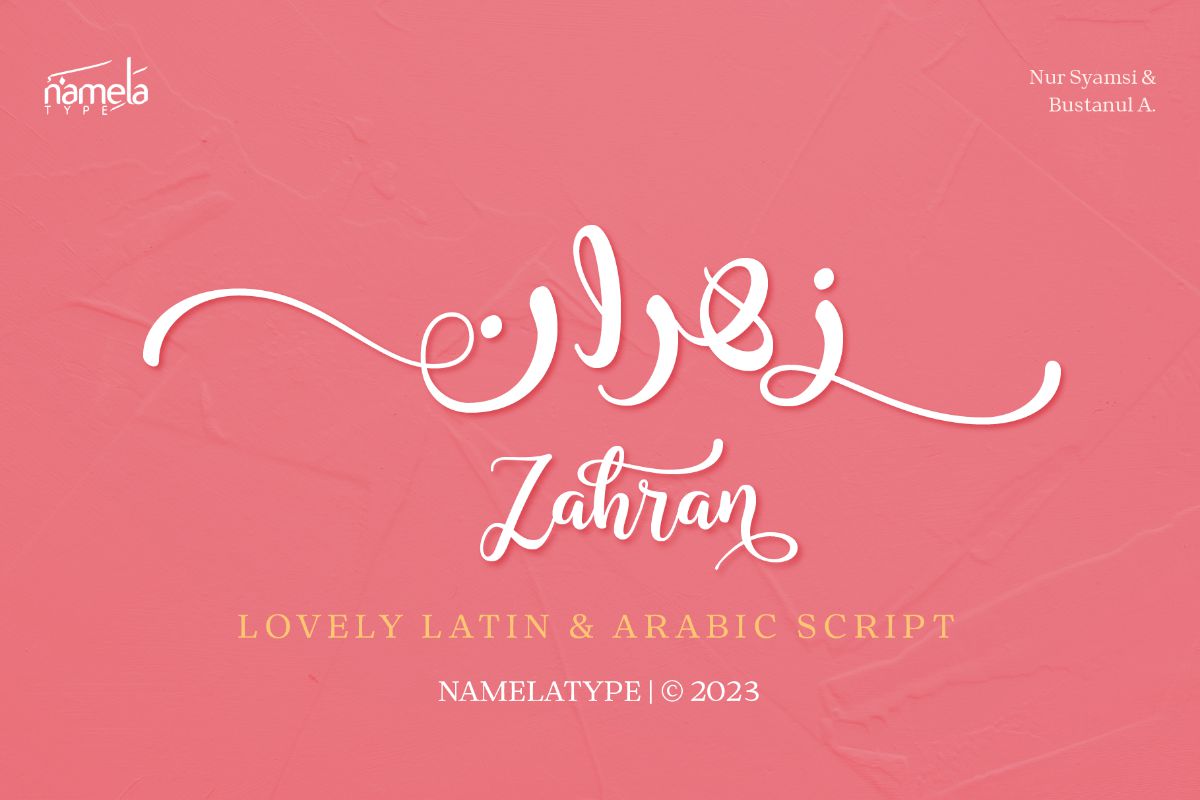
Zahran Arabic Regular
Zahran Arabic Font- A Lovely Handwritten Arabic Script Typeface for Wedding & ePub Some typefaces carry emotion before a single word is read—and Zahran is unmistakably one of them. This elegant handwritten script font blends the flowing grace of modern calligraphy with the warmth of authentic hand-lettering, forming a bilingual Latin and Arabic design that feels deeply personal and expressive. From wedding invitations to premium branding, editorial design, and social media art, Zahran introduce